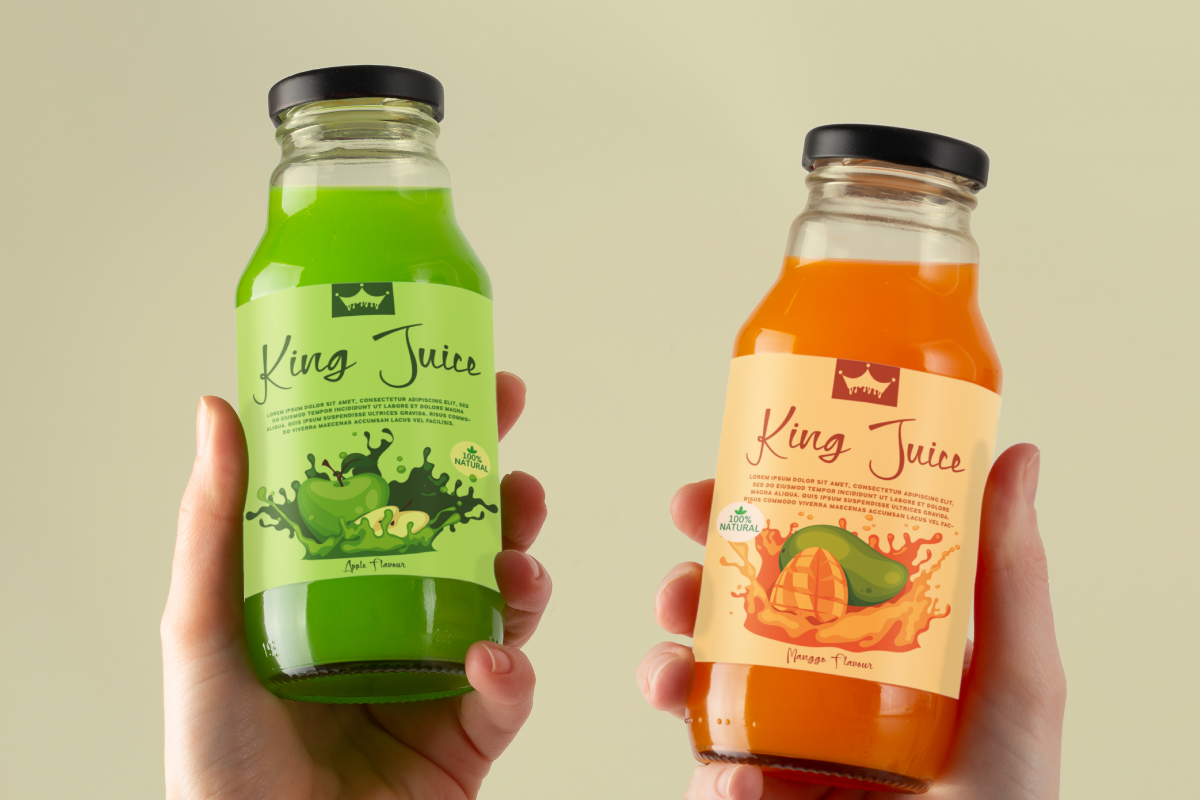
Covert Paradise Font
Covert Paradise Script Font is a stylish script font with flawless look, exclusively created by EdricStudio. This font has thick and thin lines balanced with a fresh summer related look which makes it look stunning and suitable for many industries, such as accessories, art, boutique, cosmetic, homeware, food and beverage, music festival, real estate, restaurant, surfing, travel, etc.
Covert Paradise Font comes with a full set of Uppercase and Lowercase Basic Characters, Number, large range of Punctuation and Symbol, also Ligature. It has a stunning characters set, perfectly managed with well spaced and kerning. Covert Paradise Font will be great for any projects (with extended license) including: art frame, brand logo, invitation, label, mockup design, quote, screen printing, stationery, title, website, etc.